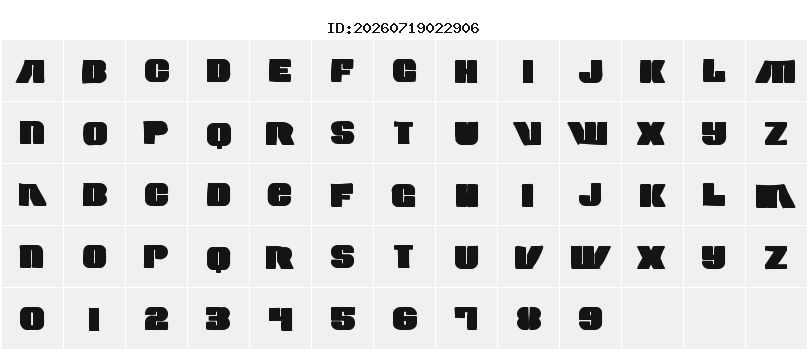
• Font Name: Contour Generator Ink
• Full Font Name: Contour Generator Ink
• Designer: Ray Larabie
About Contour Generator Ink.ttf
Contour Generator Ink.ttf is a modern, elegant sans-serif font designed for ultimate readability and visual harmony. Perfect for branding, headlines, web design, and print materials.